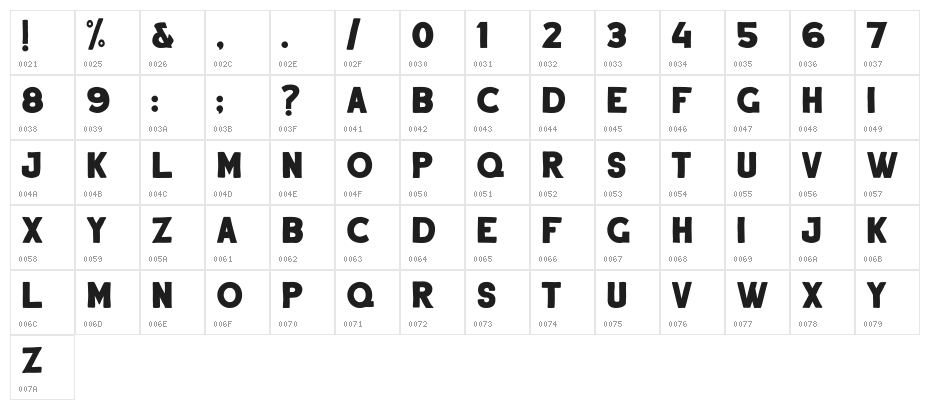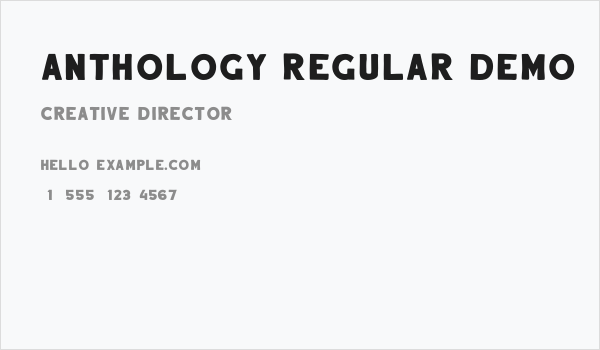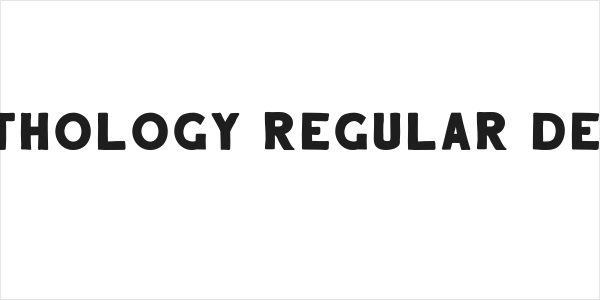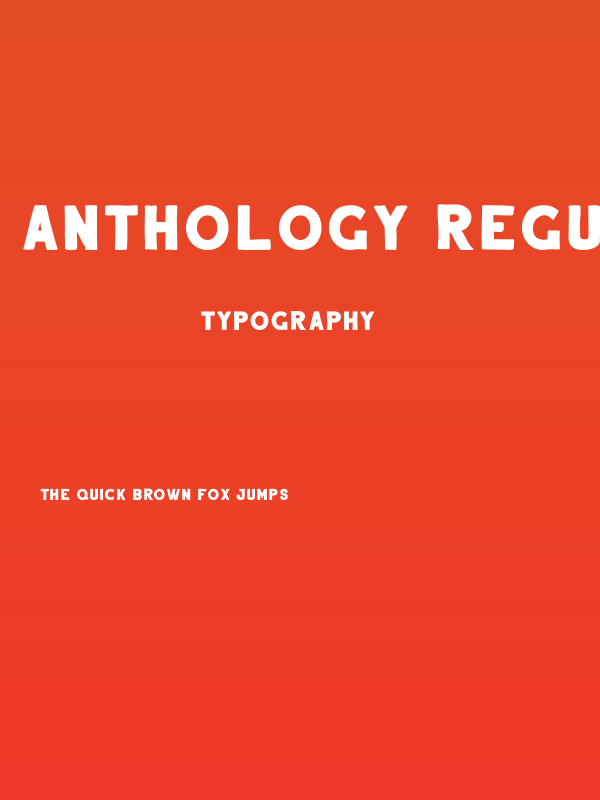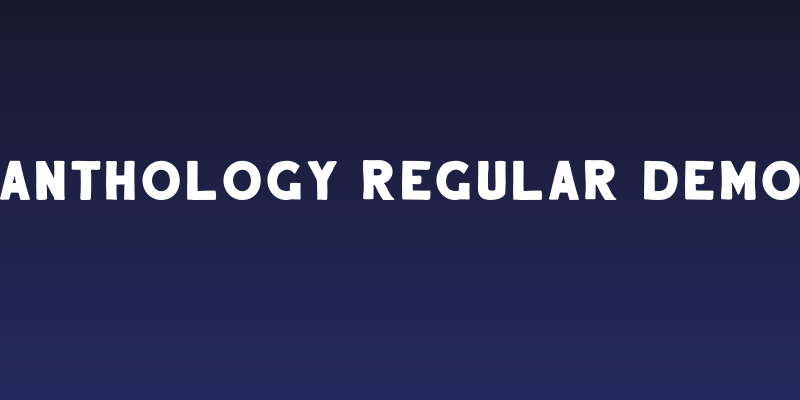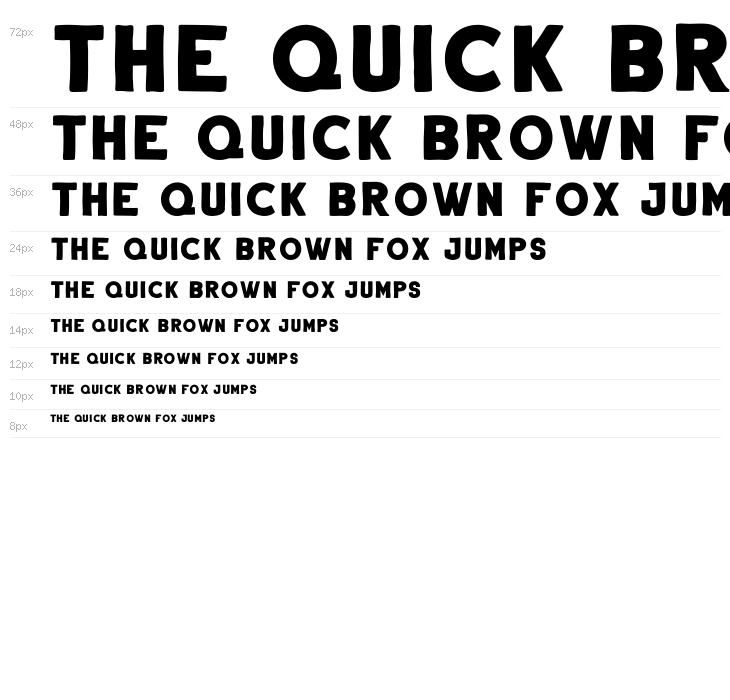
Anthology Regular DEMO Font
Anthology Regular DEMO Description
This font features bold, rounded characters with a strong presence, making it ideal for attention-grabbing designs. The uppercase letters are uniform in height, while the lowercase letters maintain a consistent style that complements the uppercase. The numbers are bold and clear, ensuring readability. Special characters are designed with the same boldness, adding versatility to the font. The overall appearance is modern and slightly playful, suitable for various creative projects.
Proposed ProjectsIdeal for posters, headlines, branding, and advertising materials where a strong visual impact is desired.